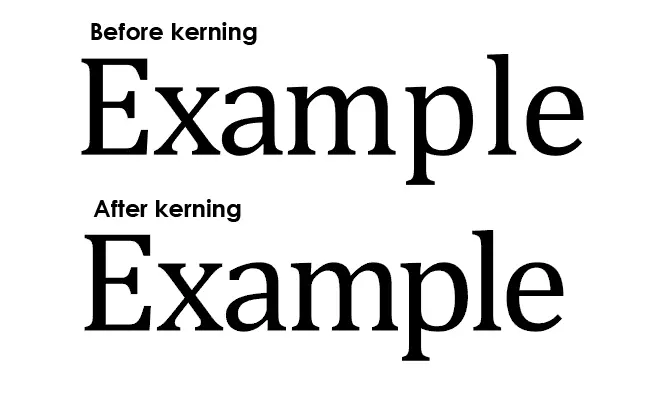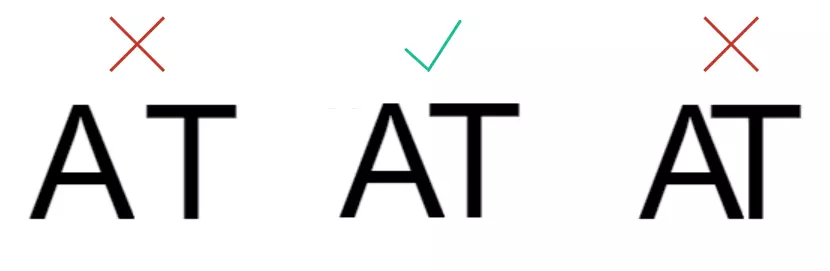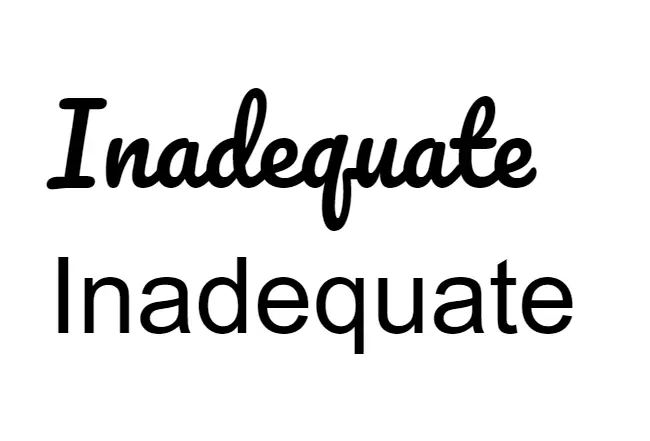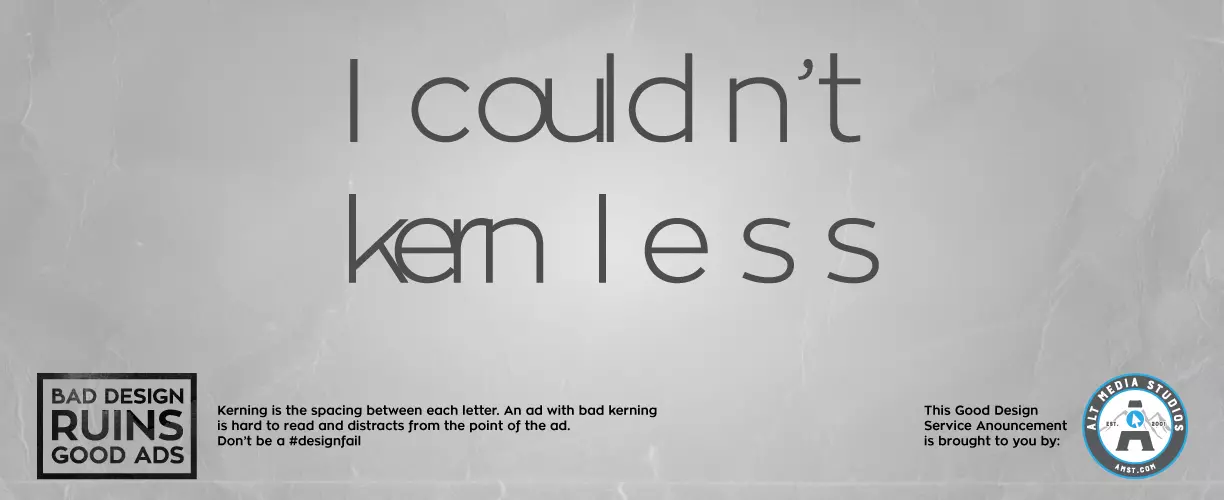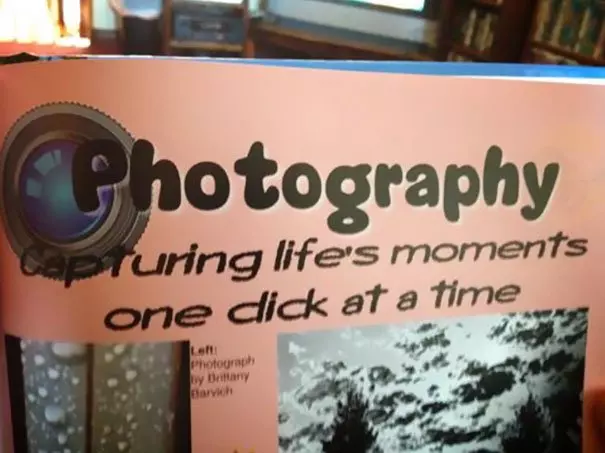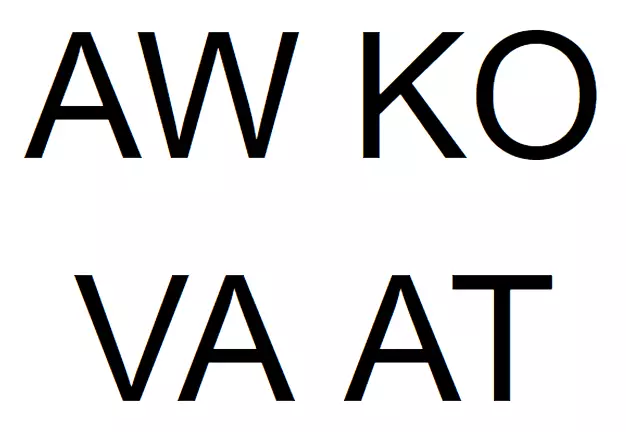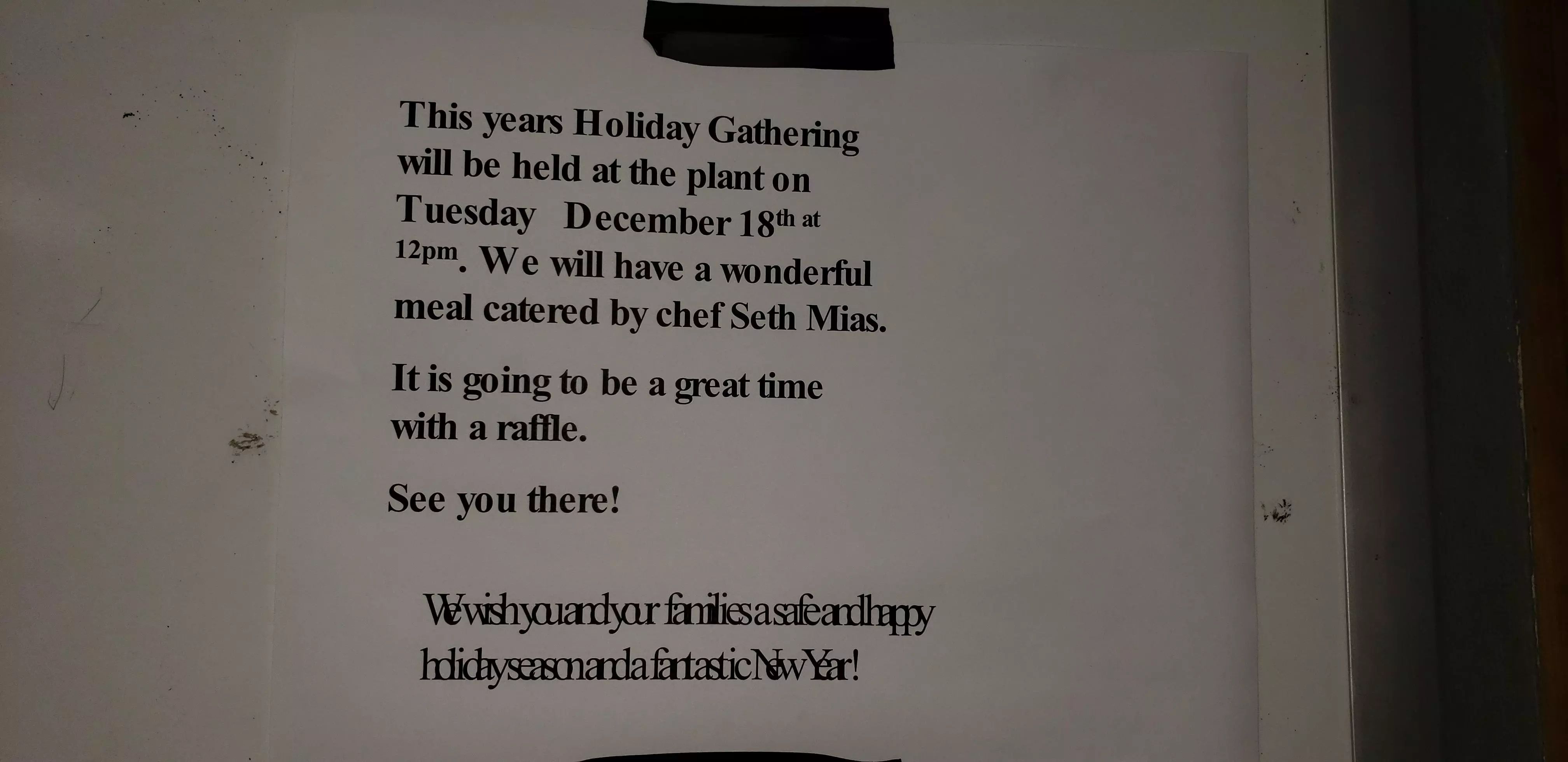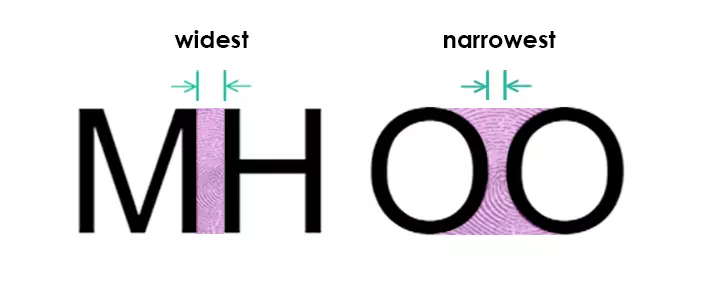
It doesn’t take an experienced designer to say what’s wrong with one overused Internet photo.
The text is viciously close to the logo.
Ah, much better now. But if the owner is a trained therapist, we have another problem. It goes by…
Kerning:
a process of adjusting the spacing between characters in a proportional font, usually to achieve a visually pleasing result.
What Is Kerning
The more the text becomes a point of focus, the more our eyes perceive small imperfections in it. And one of the most common imperfections often lies in the space between letters, or font kerning.
The key word here is “perceive”. If you were to simply set an equal size of a blank space between all letters in the word, that wouldn’t do the trick. See for yourself:
Now if we apply kerning, your type will be perceived as more balanced and legible, even though the space between letters, geometrically speaking, is distributed unequally. In typography, it’s sometimes called horizontal rhythm.
Every font has a unique rhythm to it, and key factors to the rhythm are:
• letters—every letter has a unique visual footprint in the word
• elements—serifs, line weight, and line length can significantly alter the size of the same letter
• pairs—the interplay between two adjacent letters is unique to every font
Letters
There are 5 types of letters:
• Rectangular: M, H, N – have vertical elements on both sides
• Rounded: O
• Half-rounded: B, D
• Half-Opened: L, E, C, K, J
• Opened: X, T, W
If all the letters were rectangular, we could actually use the equal space approach:
However, as soon as combinations of different letter types come into play, we need to do some tweaking:
Typically, the space between rectangular characters will be the widest, while the characters with an open shape will require less of it.
Elements
There are countless elements in every typeface that make any letter unique. And they all have names! Descenders, hairlines, loops, serifs, terminals… The angle of the letter, the line weight etc.–everything can contribute to the way we perceive it.
Compare these two words in different fonts:
The dynamic between the first two characters “I” and “n” is completely different in both cases. Due to serifs and the overall angle, the letter “I” falls out in the former case. If we wanted to improve visual perception and readability we would have to bring it closer.
Pairs
Essentially, every ready-to-use font is a set of thousands of letter combinations or kerning pairs. Font designers try to anticipate every pair possible, and most of the time, that’s enough. For web fonts and word editors… However, certain pairs are always troublesome in almost every font, especially in larger sizes. Which means you almost always are going to have problems with those:
How To Kern
There is so much geometry that goes into kerning, but we’ll leave that to font designers. In this article, we’ll use a simple kerning technique: trios.
This is the word we’re going to kern:
Step 1. Let’s find the most complex pair of letters and adjust the spacing between them:
The space between two characters should not be too wide that they fall apart and not too narrow that they glue.
The kerning of this pair will determine the rest of the horizontal rhythm. Being one of the complex ones, it usually will have the least space between the two letters compared to the other pairs.
Step 2. Now we add another character adjacent to our base AT pair. Let’s take “I”
Step 3. Let’s again form the next trio of characters, two of which we’ve already kerned.
Step 4. By working with three characters at a time, we eventually kern the whole word.
When to Kern
There may be circumstances when people don’t need kerning.
However, more often than not we need it. Kerning affects both readability and perception. Proper kerning is like proper interface design – if it’s done well, you don’t even notice it. If, however, something is off…
The staggering amount of unfortunate “click” kernings out there makes me think of some conspiracy theory…
It’s not just about dirty jokes, though. Often reading badly kerned text may feel like torture:
The book can easily be reviewed badly just because its text had a bad kerning. The marketing ad may convert poorly for the same reason.
Yet, sometimes, unusual kerning can be intentional. Especially in logo design.